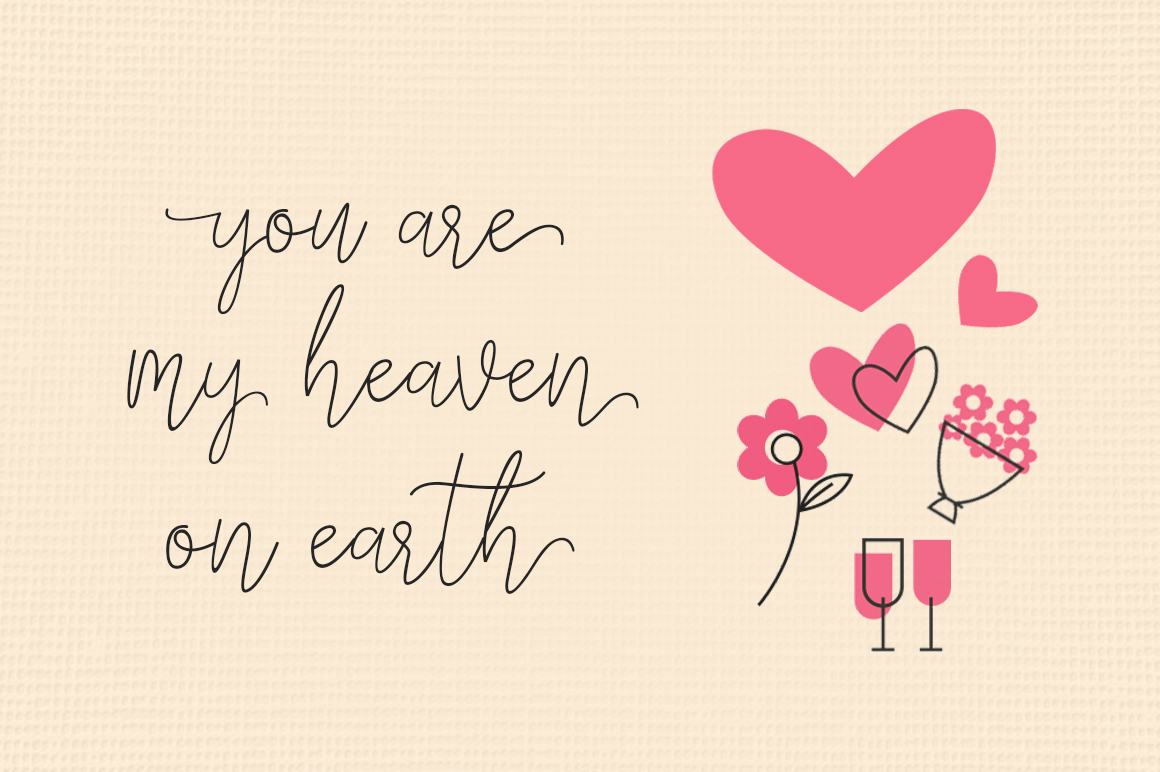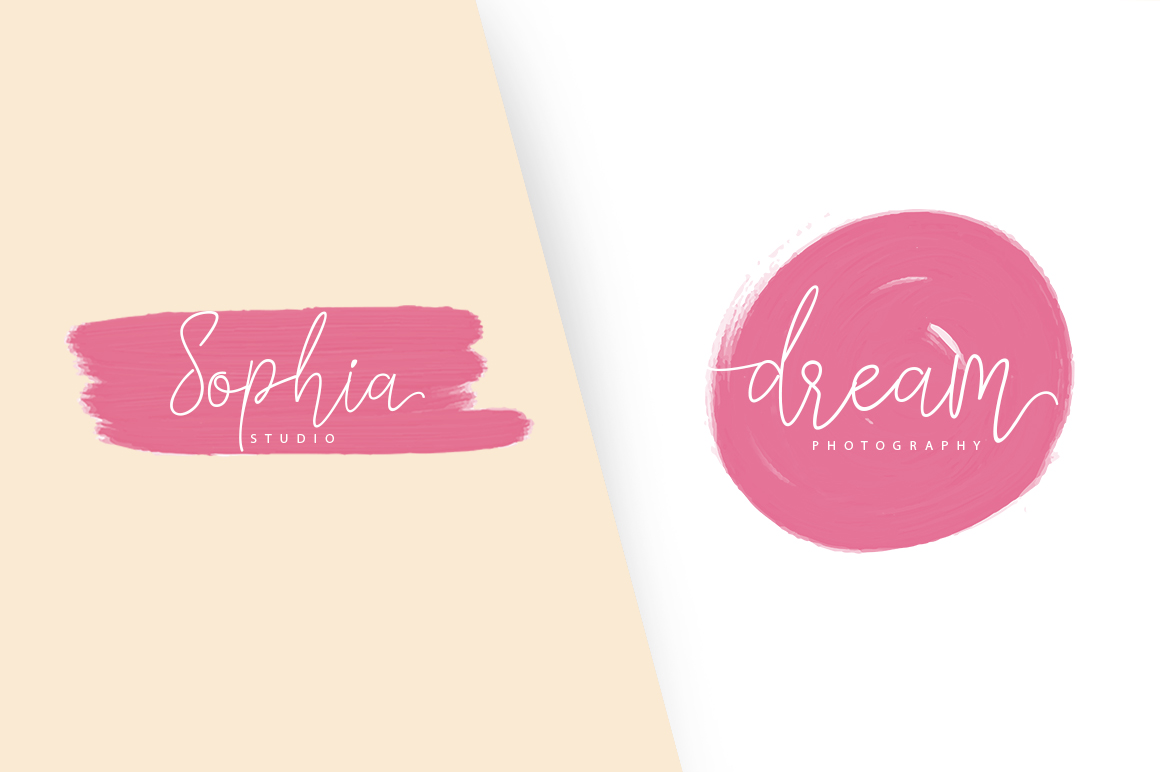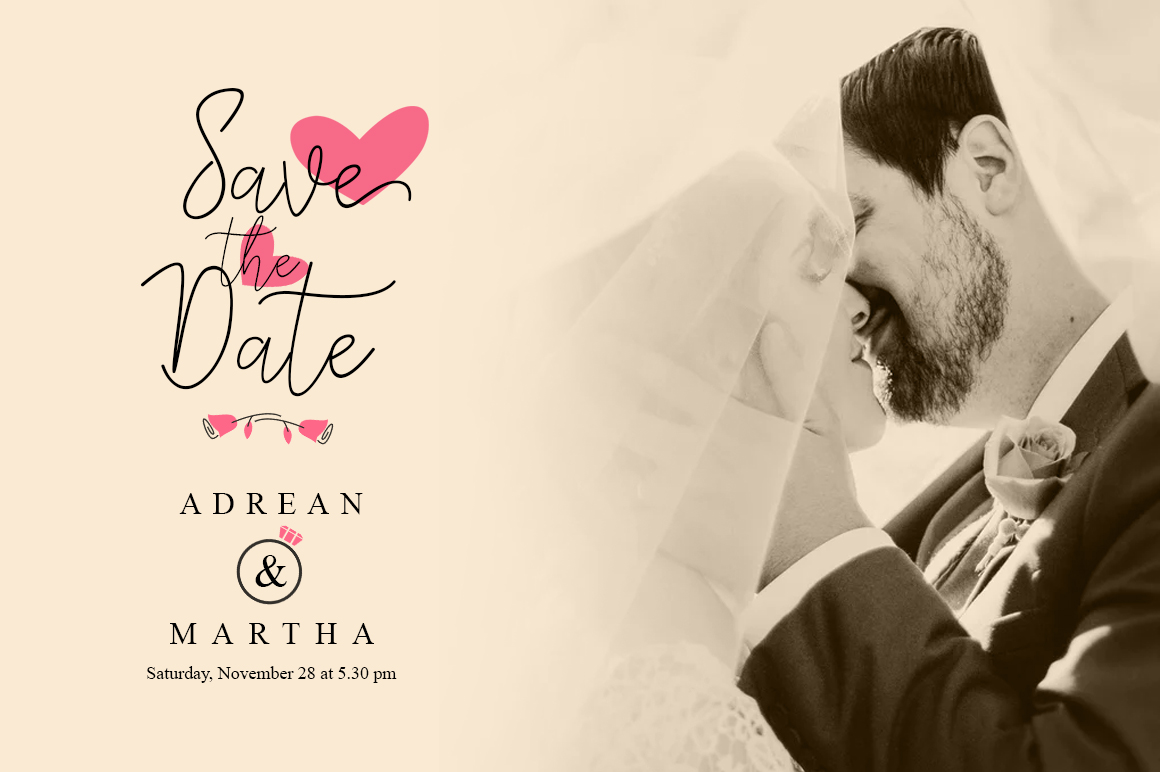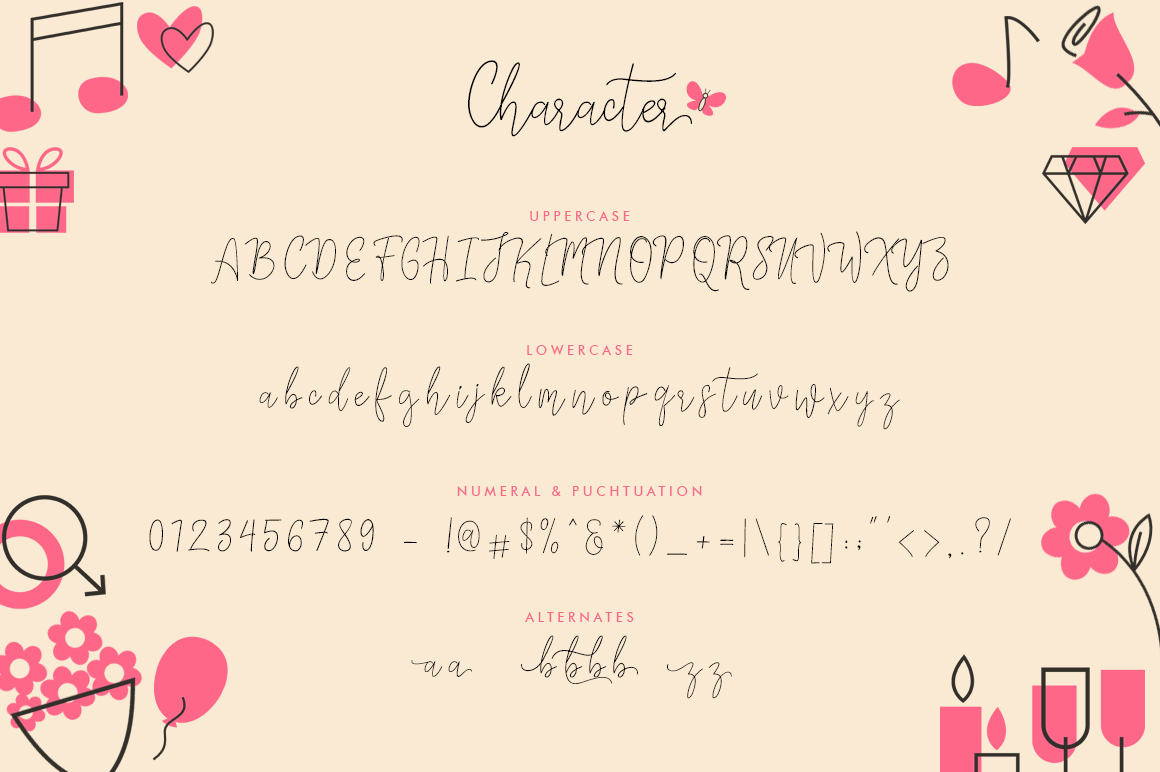
Introduction to Licht Script Font
As a designer, there’s no shortage of creative moments that inspire us to try new things. It’s the quiet morning hours, sipping coffee and browsing through font collections, when you stumble upon that perfect design resource that makes your heart skip a beat. For me, that moment came when I discovered the enchanting Licht Script Font.
This beautifully handcrafted monoline script is a breath of fresh air in the world of typography. With its modern take on traditional script styles, Licht Script Font offers a clean and romantic aesthetic that’s perfect for designers looking to add a touch of elegance to their creative project. What sets Licht apart is its minimal approach to flourishes and weighting, making it a valuable addition to any design arsenal.
Key Features of Licht Script Font
- High-quality script font perfect for creative projects, offering a unique and elegant touch.
- Designed to be versatile, making it suitable for a wide range of creative projects, from invitations to signage.
Honest Review: Licht Script Font
I recently had the chance to work with the Licht Script Font, and I must say, it’s a game-changer for any creative project that requires a touch of elegance and sophistication. This font is a must-have for any designer looking for a high-quality design resource.
What works well: ✨ The Licht Script Font has a beautiful, flowing script that’s perfect for adding a personal touch to your designs. It’s also incredibly versatile, working well for both digital and print projects. The font is available for free download, making it an excellent resource for designers on a budget.
However, there are a few limitations: ⚠️ The font may not be suitable for projects that require a more bold or dramatic look. Additionally, some users have reported issues with font rendering on certain platforms.
Overall, I’m thoroughly impressed with the Licht Script Font. It’s a fantastic addition to any designer’s toolkit, and I highly recommend it for any creative project that requires a touch of class and sophistication.
The Licht Script Font is ideal for use in creative projects, such as wedding invitations, birthday party invitations, or any other occasion where a high-quality, elegant font is desired. It’s also great for use in design resources, such as social media graphics or website headers, where a transparent background is desired.